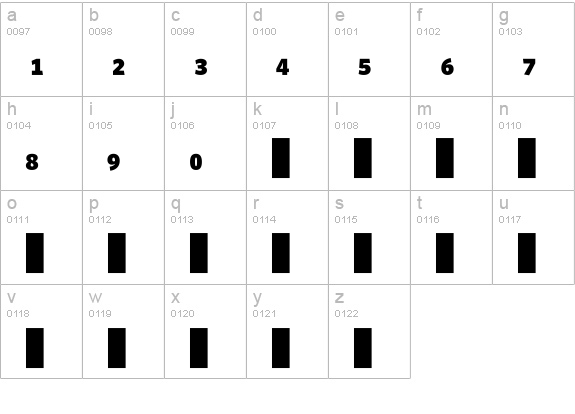
WhitneyNumeric-Black is a maximum-weight, dramatic variant in the WhitneyNumeric typeface family \xE2\x80\x94 well suited to maximum-impact headlines, posters, and packaging.
WhitneyNumeric-Black is a sleek and modern font that exudes sophistication and professionalism. Its bold and sharp design makes it perfect for headlines, titles, and any other attention-grabbing text. The clean lines and carefully crafted letterforms create a sense of elegance and style. This font is not only visually appealing, but it is also highly functional. The strong and bold characters make it easy to read, even from a distance. Whether you're designing a poster, creating a logo, or working on a website, WhitneyNumeric-Black will bring your text to life and make a lasting impression. What makes this font even more extraordinary is that it is freely available to download at FontsMarket.com. You can now add this remarkable font to your collection without any cost. This means you can use it in personal projects, professional designs, or anything in between, without having to worry about breaking the bank. WhitneyNumeric-Black is a versatile font that can be paired with other typefaces or used on its own to create a bold statement. Its timeless design and striking presence make it suitable for various industries and purposes. Whether you're working on a fashion brand, a tech startup, or a creative agency, this font will elevate your designs and capture attention. So, don't miss out on this incredible opportunity to enhance your projects with WhitneyNumeric-Black. Download it for free at FontsMarket.com and take your designs to the next level.